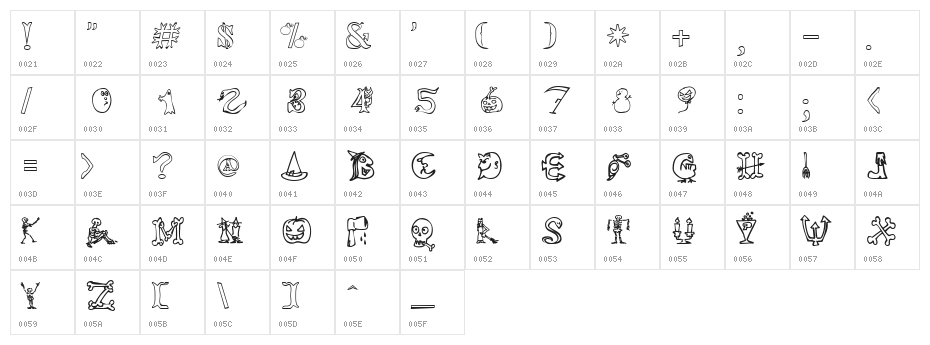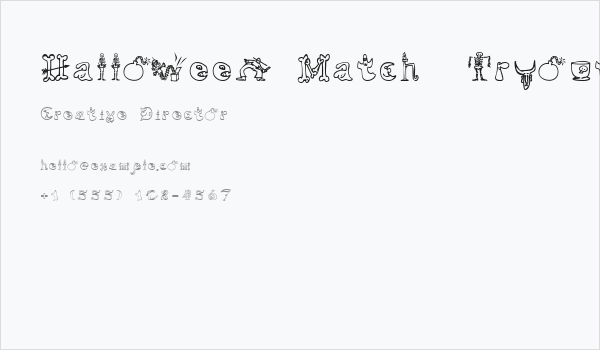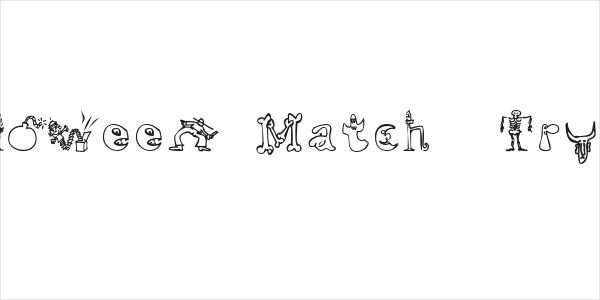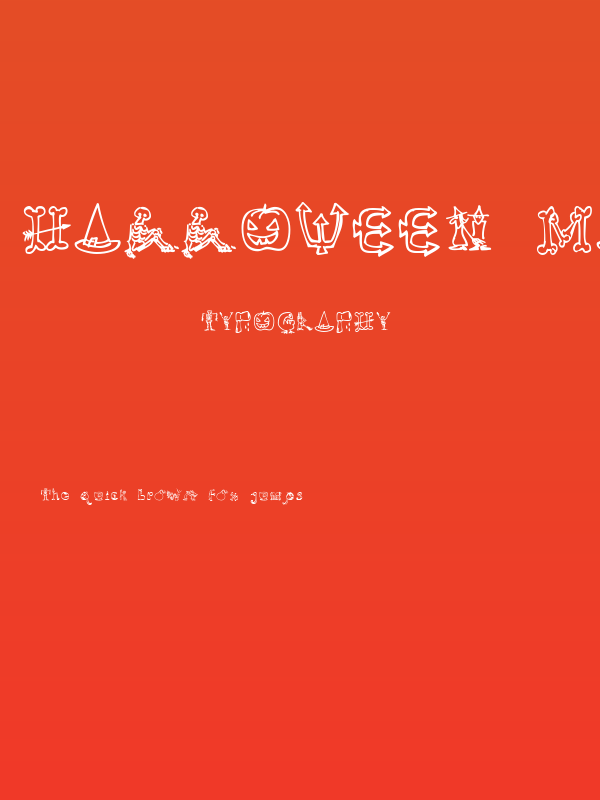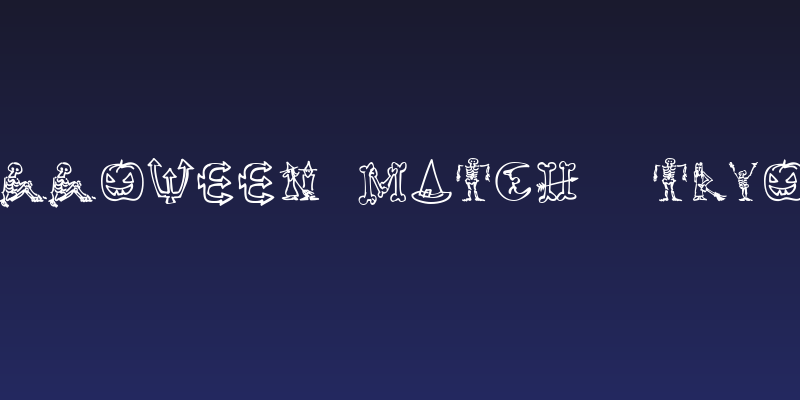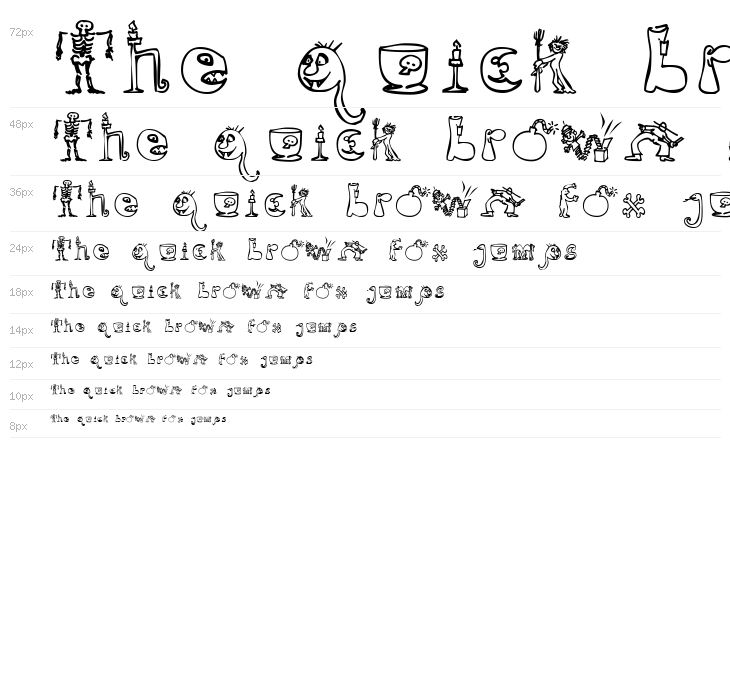
Halloween Match Tryout Font
This font is a playful and spooky decorative typeface inspired by Halloween themes. Each character is uniquely designed with elements such as witches' hats, skeletons, pumpkins, and other eerie motifs. The uppercase letters feature intricate designs that incorporate Halloween symbols, while the lowercase letters maintain a whimsical yet creepy aesthetic. Numbers and special characters also follow the Halloween theme, with creative and thematic embellishments. The font's overall appearance is fun and festive, making it perfect for seasonal projects.
| Proposed Projects | Ideal for Halloween party invitations, themed posters, greeting cards, and festive decorations. |